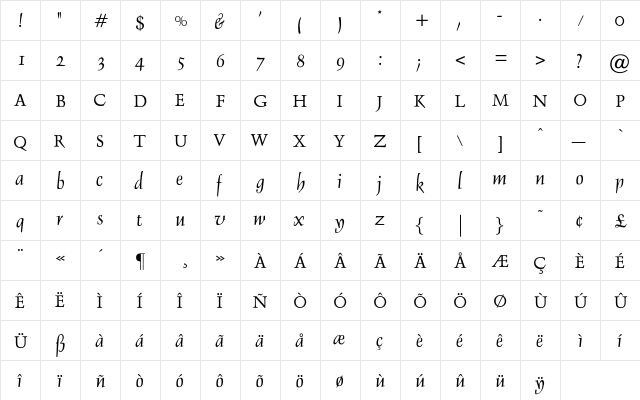
Flipper Regular
Design Context for Flipper Typeface
Flipper takes a measured approach to typography — its balanced proportions and neutral character make it a reliable workhorse for both digital and print work.